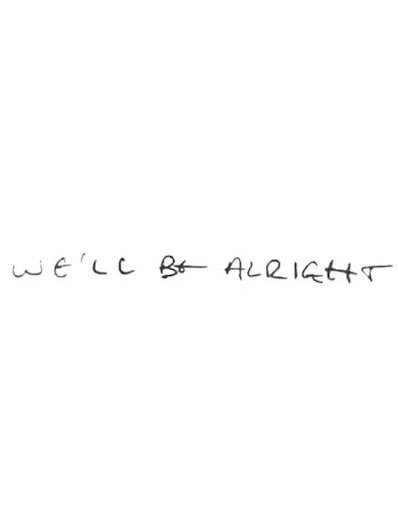
Harry Styles Handwriting Font Word
Harry styles handwriting font word. Harry tattoos harry styles tattoos boy tattoos body art tattoos small tattoos tatoos one direction tattoos handwriting tattoos fan tattoo. Making the web more beautiful, fast, and open through great typography This font has 1 styles available ( harry potter).
Bantamweight, featherweight, lightweight, welterweight, middleweight and heavyweight. Styles' handwriting doesn't slant to the left or the right, which means he's very practical and logical. Aquiline two isn’t a bad tom riddle’s handwriting, and daniel is ok for harry potter’s.
Choose love in harry styles’ handwriting. Lumos is the chapter titles and the headers. Click now to create a custom image with your own words that you can download.
The special fonts are a bit harder to find, as many of them are custom. Nov 09, 2019 at 05:58. I can definitely see that from styles, because he seems pretty level headed.